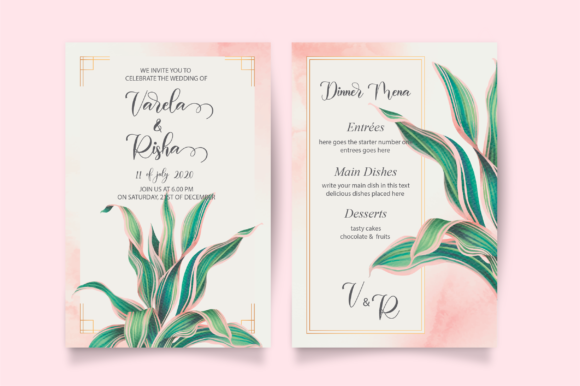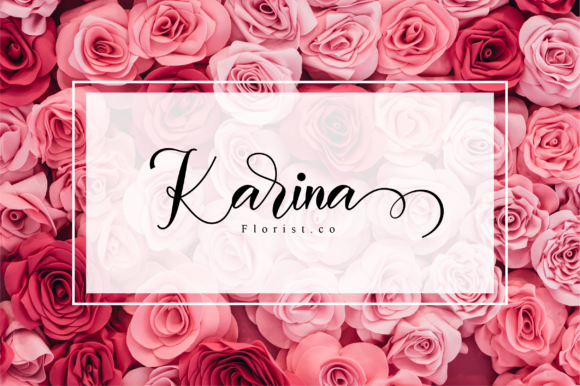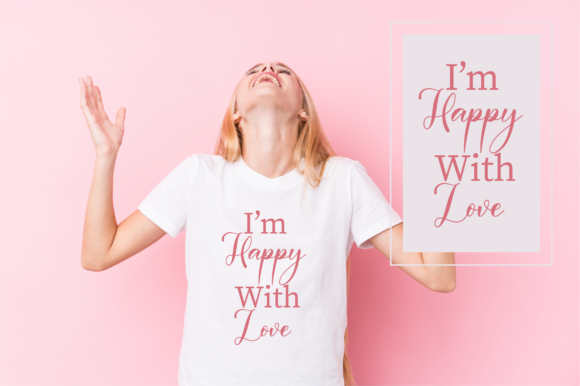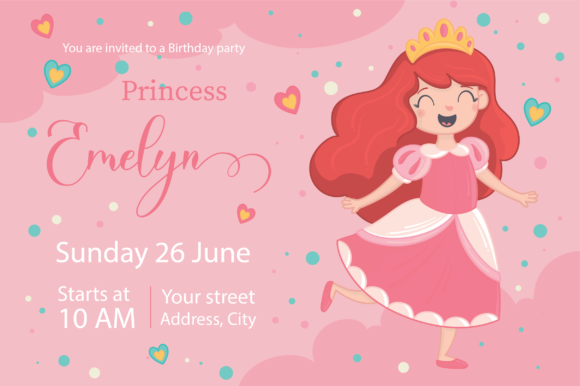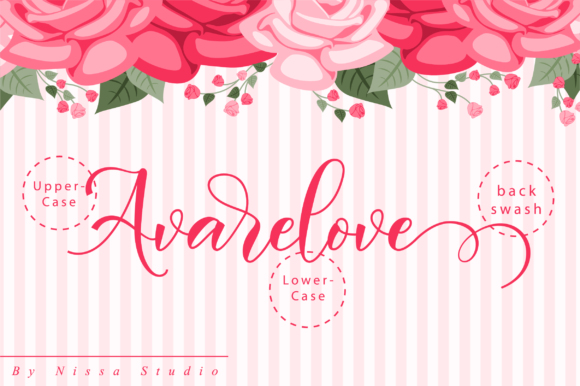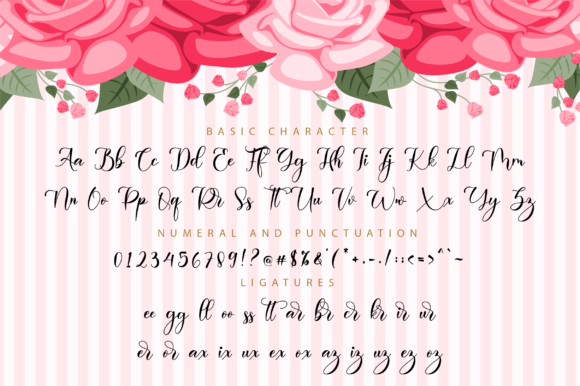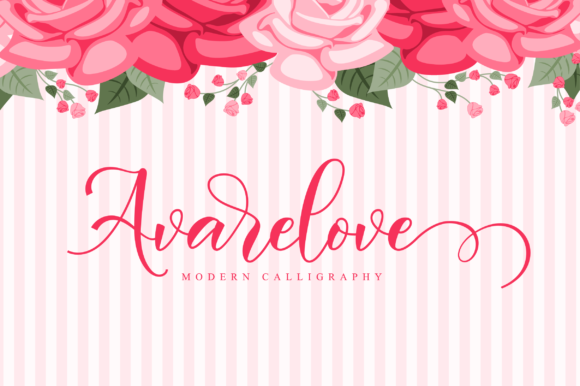
Introducing Avarelove Script Font: Elevate Your Designs with Elegance
Are you on the hunt for a font that exudes sophistication, modernity, and class? Look no further than the Avarelove Script Font. This stunning script font is designed to add a touch of luxury to your designs, making it perfect for a wide range of applications, from logos and branding to invitations, stationery, and wedding designs.
The Beauty of Avarelove Script Font
Avarelove is an incredibly beautiful script font that boasts a classy, elegant, and modern look. Its unique and flowing design makes it stand out from other fonts, adding a touch of sophistication to any design. The font’s elegant strokes and beautiful curves make it perfect for designers and crafters who want to create stunning visual content.
What Can You Use Avarelove Script Font For?
The versatility of Avarelove Script Font is one of its most significant advantages. This font can be used for a wide range of design projects, including:
- Logos and Branding: Create a lasting impression with a custom logo that exudes elegance and sophistication.
- Invitations and Stationery: Add a touch of luxury to your invitations, greeting cards, and stationery.
- Wedding Designs: Make your wedding designs truly unforgettable with the Avarelove Script Font.
- Social Media Posts: Elevate your social media posts with a font that stands out from the crowd.
- And much more! The possibilities are endless with Avarelove Script Font.
Why Choose Avarelove Script Font?
With so many fonts available, why choose Avarelove Script Font? Here are just a few reasons:
- Unique Design: Avarelove Script Font has a unique and distinctive design that sets it apart from other fonts.
- Elegant and Modern: The font’s elegant and modern look makes it perfect for designers and crafters who want to create sophisticated designs.
- High-Quality: Avarelove Script Font is a high-quality font that is designed to deliver exceptional results.
Tips for Using Avarelove Script Font
Here are a few tips for using Avarelove Script Font:
- Pair it with a sans-serif font: Pairing Avarelove Script Font with a sans-serif font can create a beautiful contrast that adds visual interest to your design.
- Use it for headings: Avarelove Script Font is perfect for headings and titles, adding a touch of elegance and sophistication to your design.
- Experiment with colors: Don’t be afraid to experiment with different colors and textures to add depth and visual interest to your design.
In conclusion, Avarelove Script Font is a stunning script font that is perfect for designers and crafters who want to add a touch of elegance and sophistication to their designs. With its unique and flowing design, Avarelove Script Font is sure to make your designs stand out from the crowd. Whether you’re creating logos, branding, invitations, stationery, or wedding designs, Avarelove Script Font is the perfect choice.